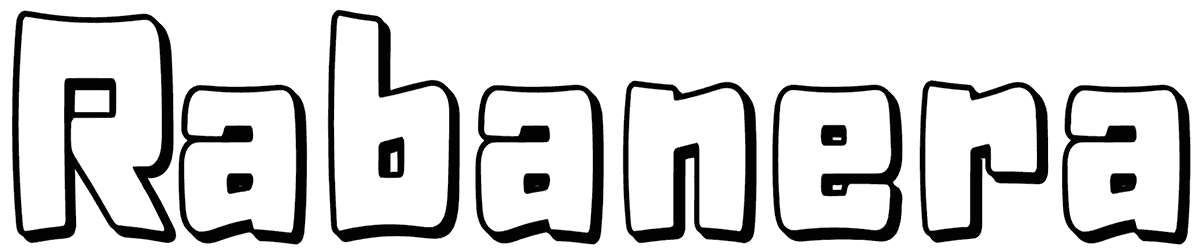
Rabanera Font
A chunky font, such as Rabanera, can boost the quality of your artwork, like illustrations, book covers, magazines, headlines, and social media posts.
Rabanera es una nueva fuente tipográfica de estilo outline + shadow, de carácter divertido esta fuente la puedes usar en diseño gráfico o editorial, por su morfología se la puede denominar: Display font. Ideal para cualquier diseñador gráfico, esta fuente le servirá para encabezados o grandes titulares y rótulos, de perfecta legibilidad y lectura en frases largas.
La tipografía está compuesta de 369 glifos, son los necesarios para usar la fuente con todos los idiomas europeos basados en el Latín, incluye el símbolo del euro y el icono del rábano construido con la letra D mayúscula, el símbolo duplicado de Radical y el símbolo less para la punta.